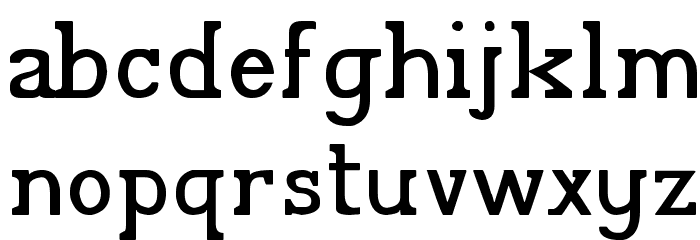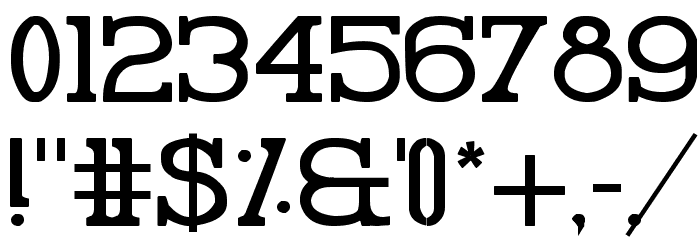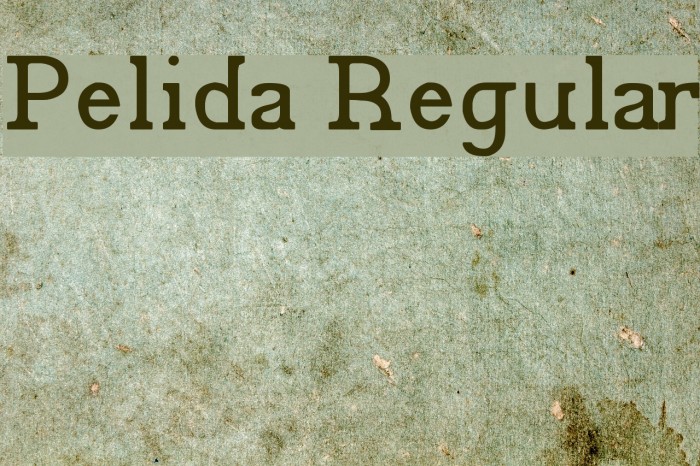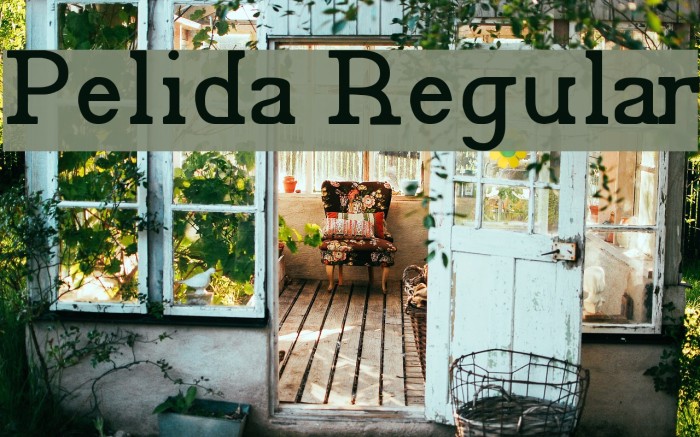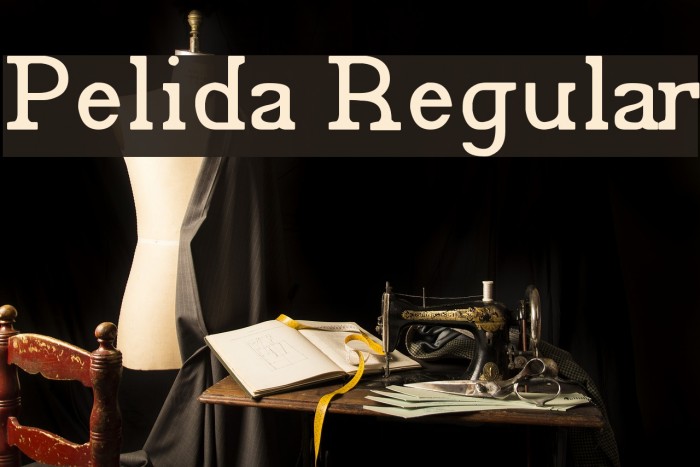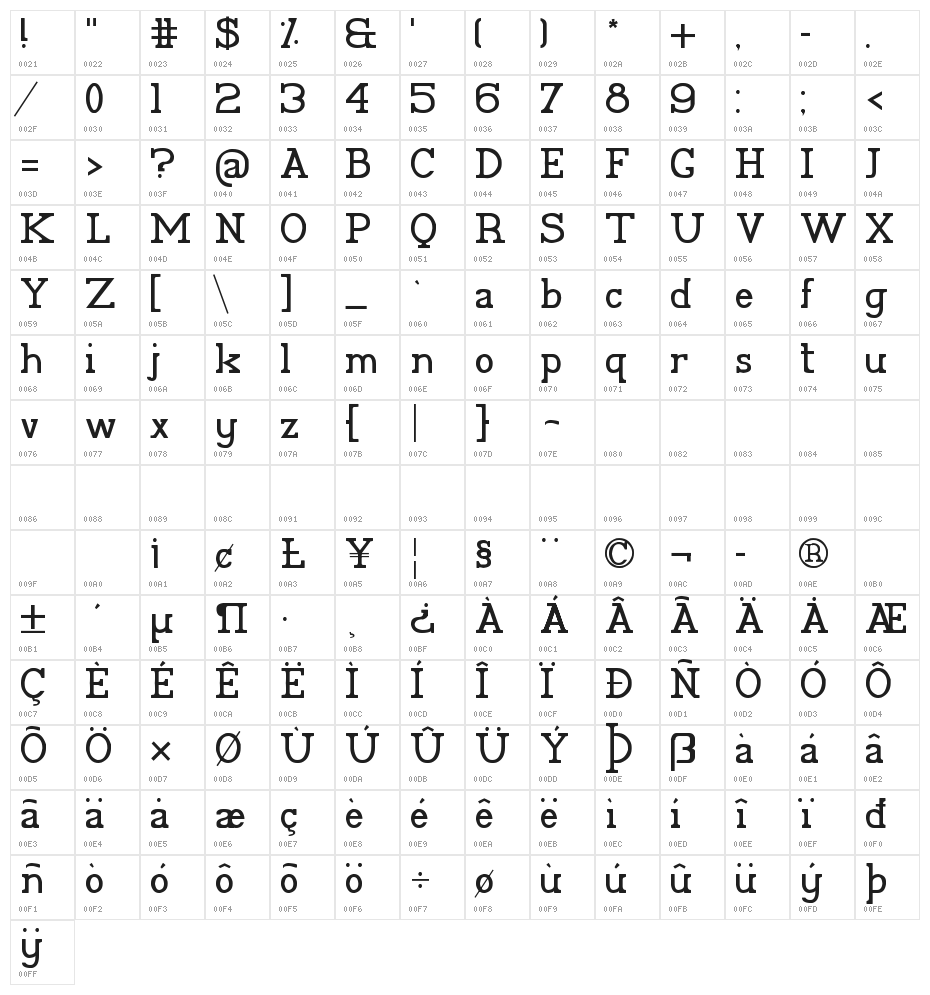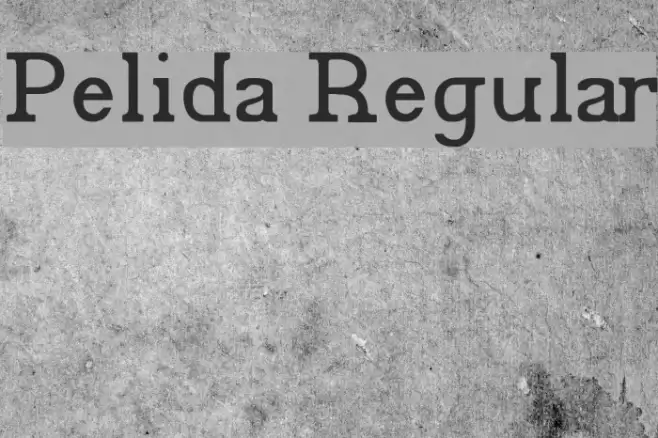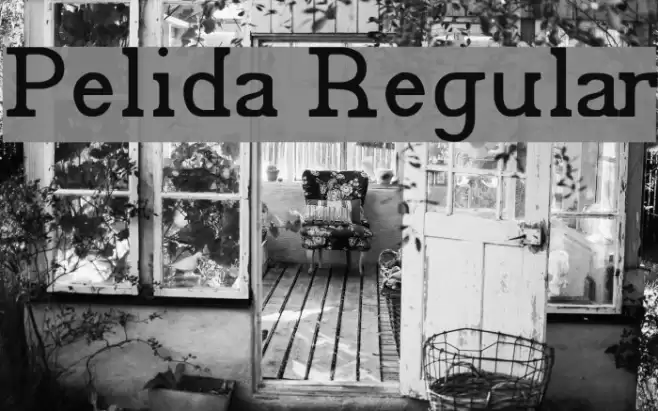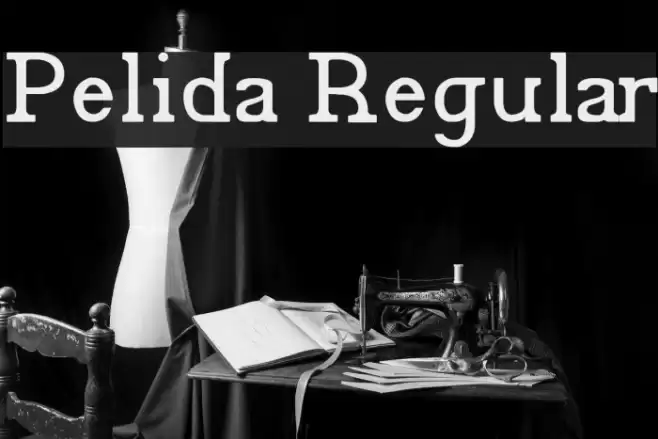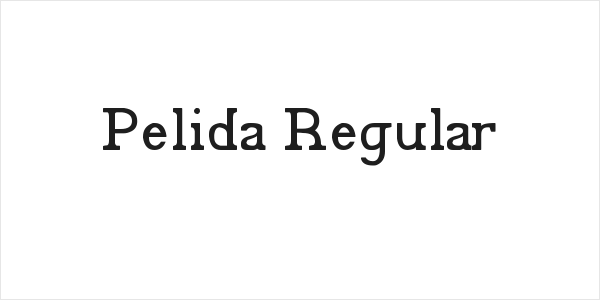
Pelida Regular Font
This font features a distinctive slab serif style with strong, bold lines and a classic appearance. The uppercase letters are robust and commanding, while the lowercase letters maintain a consistent weight that complements the overall design. The numerals are clear and easy to read, with a uniform thickness that enhances legibility. Special characters are well-integrated, maintaining the font's cohesive look. The font's structure is balanced, with a slight emphasis on vertical strokes, giving it a sturdy and reliable feel. It is well-suited for projects that require a traditional yet impactful typeface.
A bold slab serif font with strong lines and a classic style.
- Overall Style: Classic